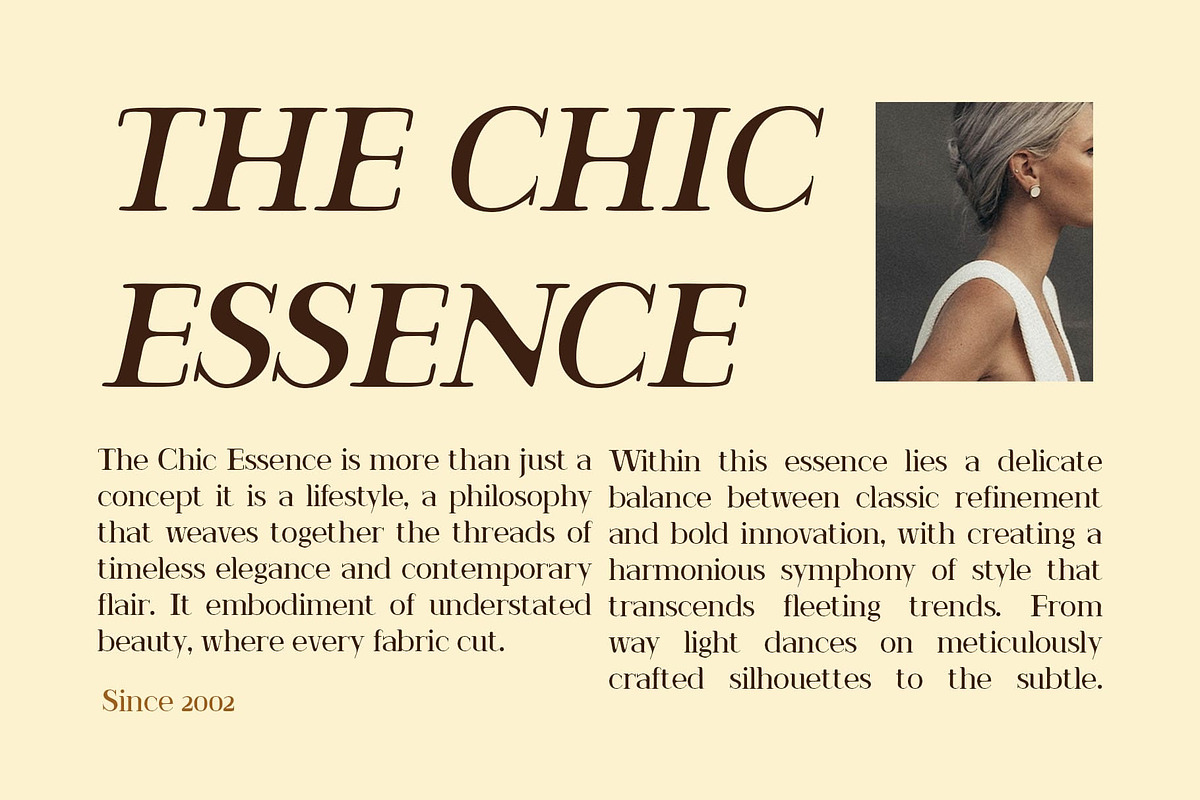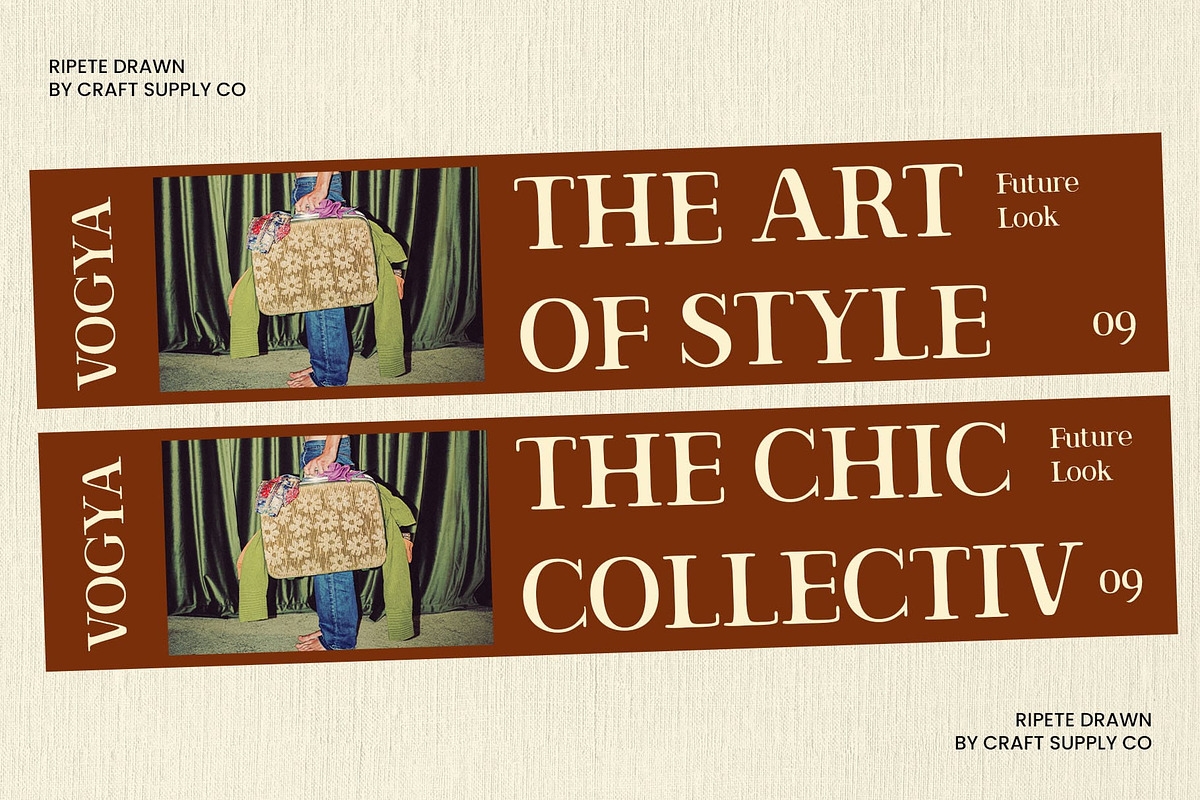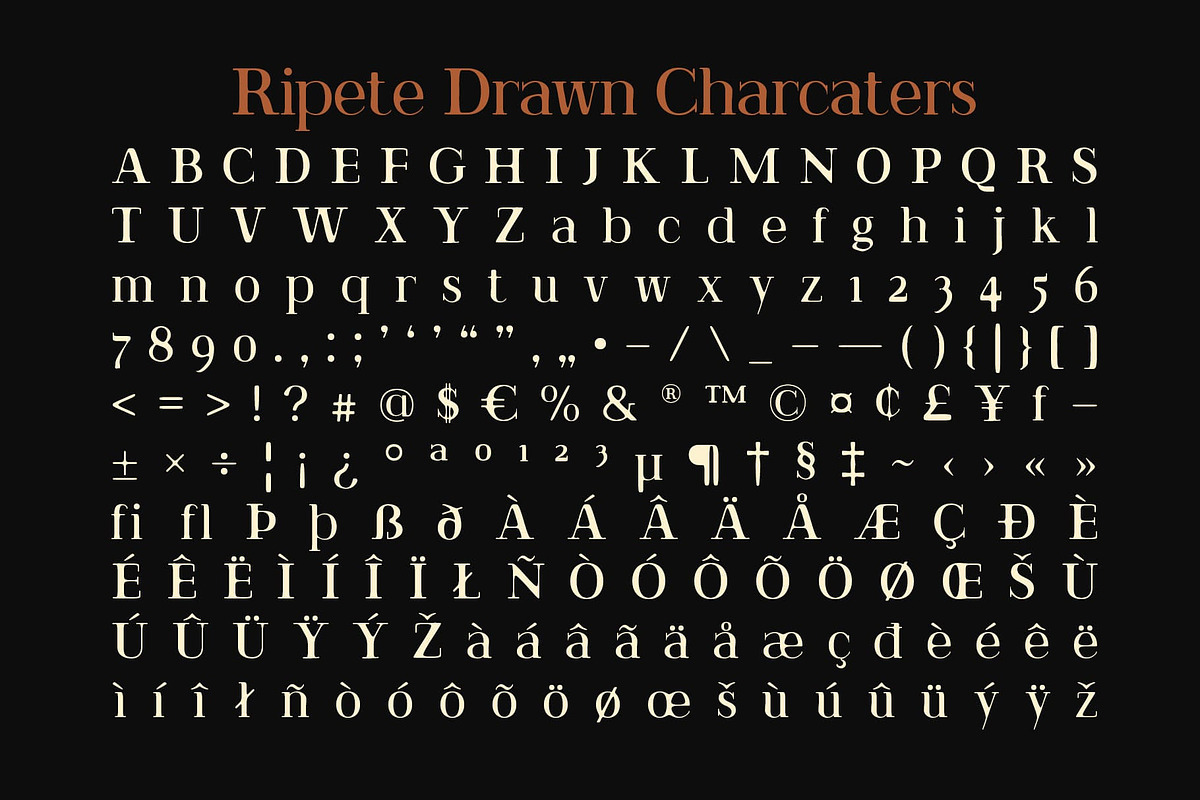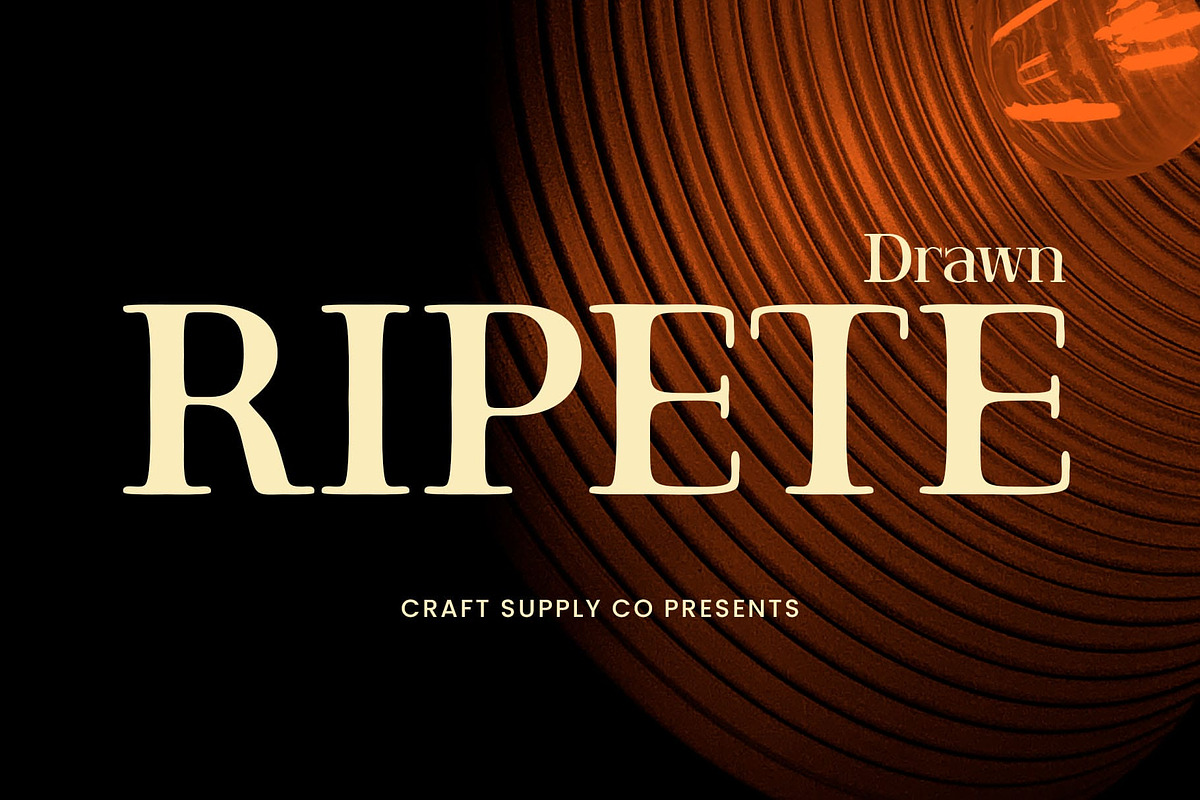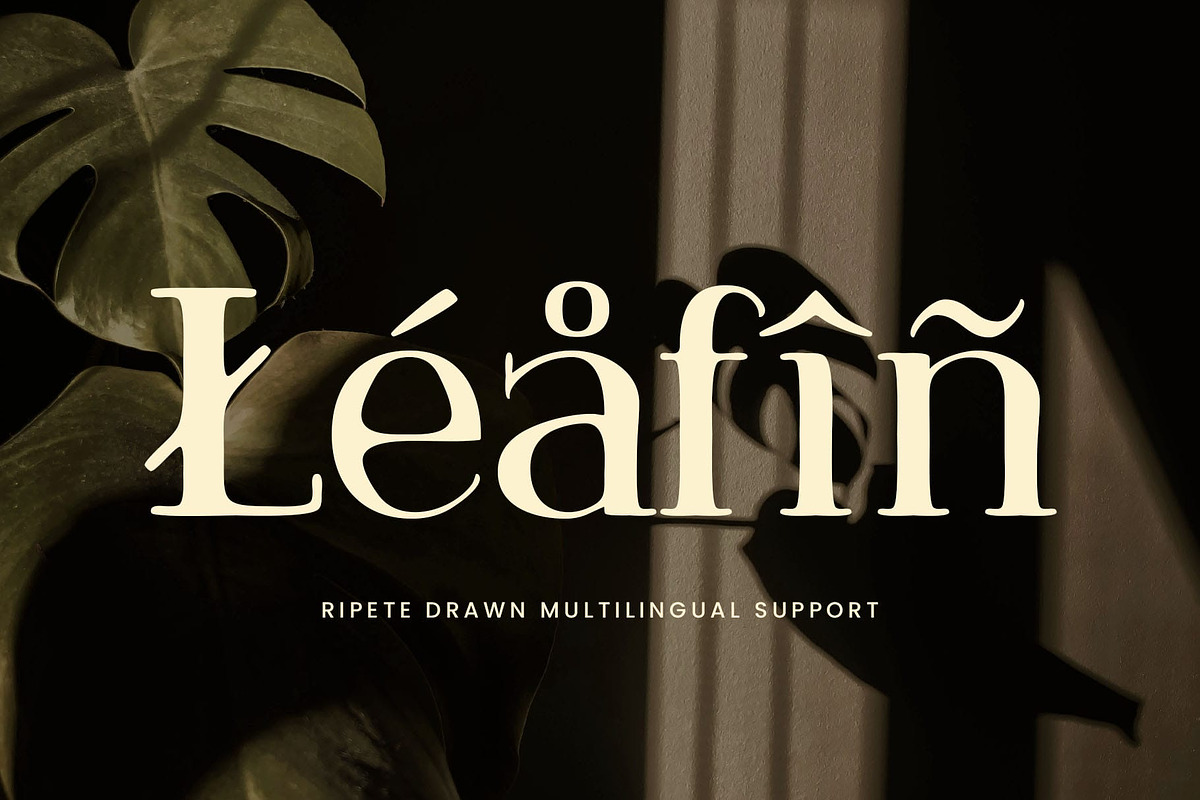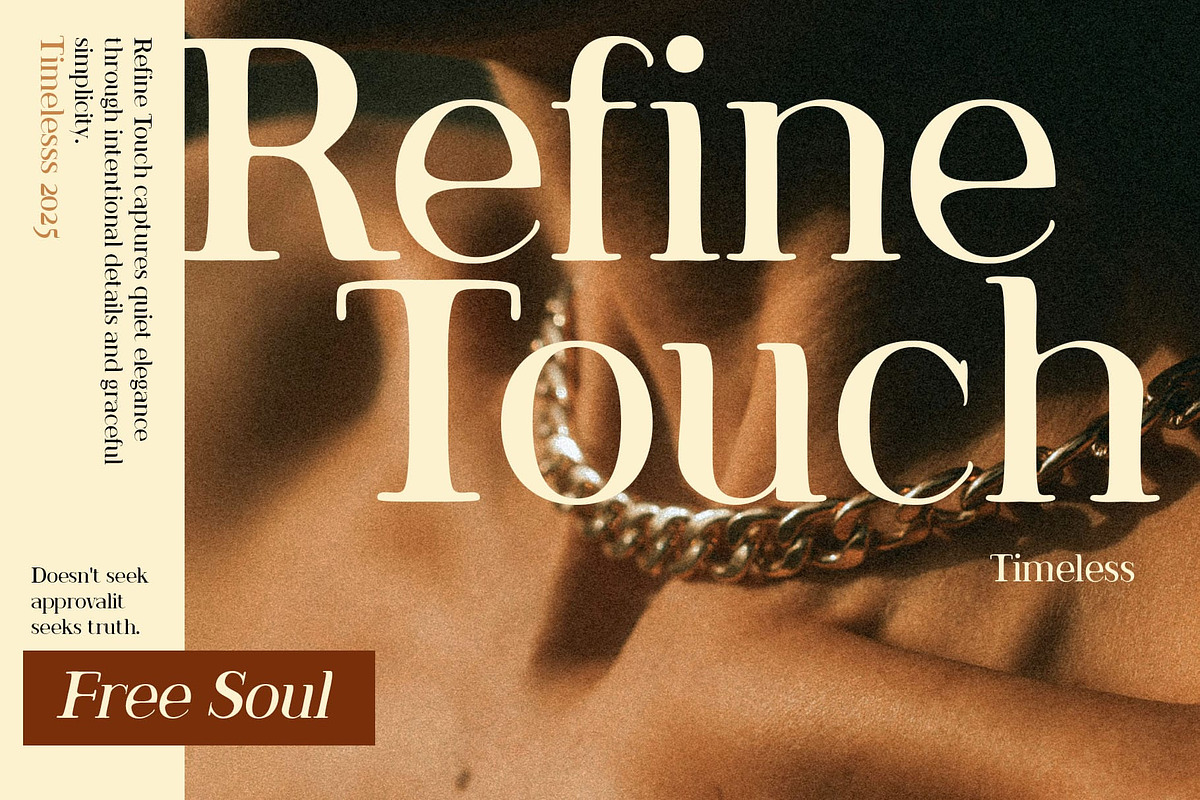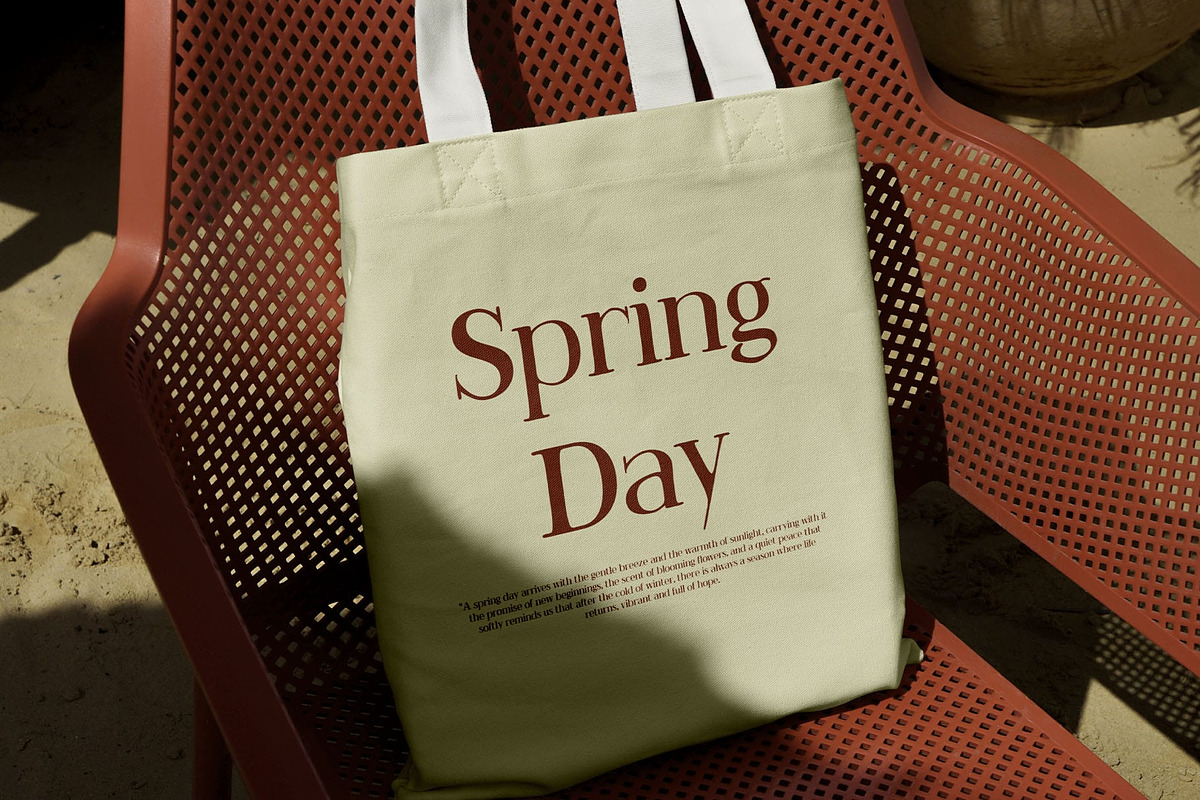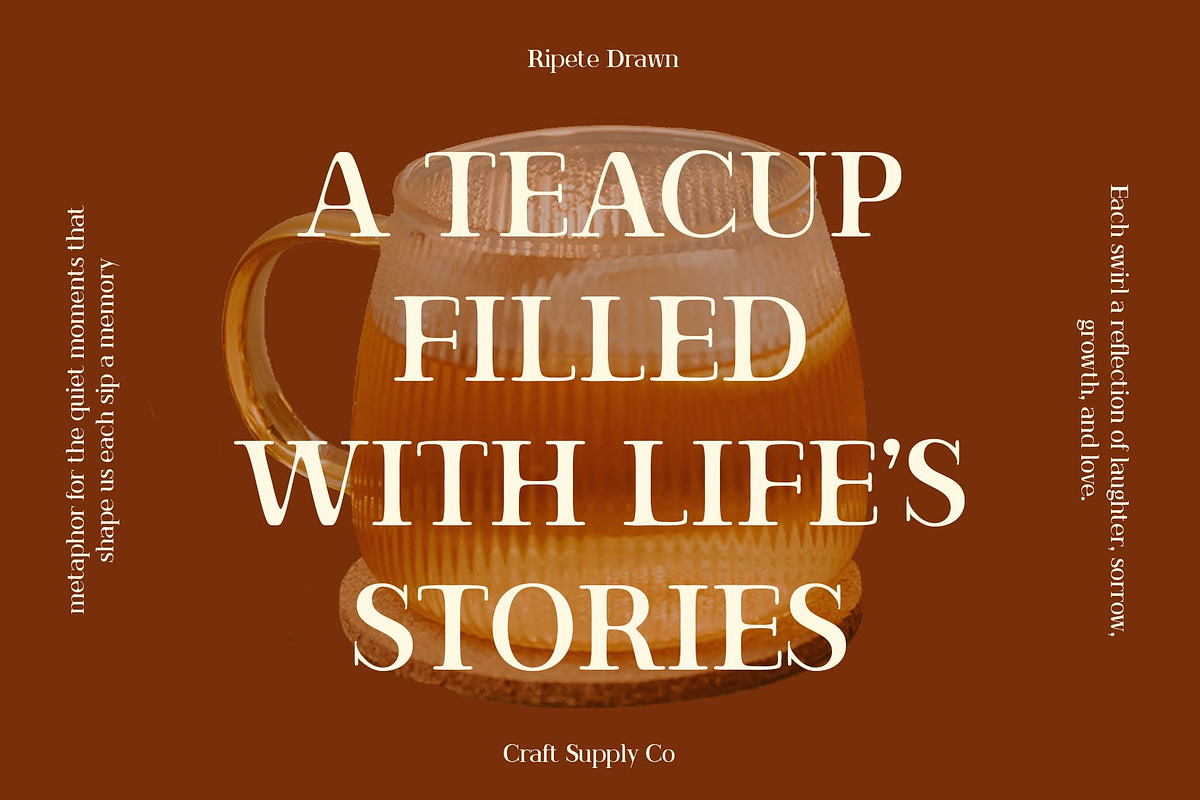
Ripete Drawn
Ripete Drawn Font – Elegance Handcrafted with Texture
Timeless Elegance with a Contemporary Edge Ripete Drawn is a modern serif font that gracefully blends classic serif sophistication with a clean, contemporary form. Its sharp serifs and well-balanced proportions give it a refined, high-end feel—ideal for premium designs that require both structure and elegance.
Hand-Drawn Texture for a Soft, Artistic Touch What sets Ripete Drawn apart is its soft, hand-drawn texture that gently disrupts its polished silhouette. This subtle imperfection adds warmth and personality, creating a tactile, organic impression. The drawn effect evokes the feel of craftsmanship and intentional design, making it both expressive and human.
Perfect for Editorial and Luxury Branding Ripete Drawn thrives in editorial layouts, luxury branding, and visual identities that require grace and distinction. Its elegant form commands attention without overpowering, making it ideal for magazine headlines, high-end product packaging, and artistic visual storytelling.
Subtle Expression for Thoughtful Design Whether used in minimalist designs or layered with rich visuals, Ripete Drawn adds a subtle yet expressive voice. It’s perfect for projects that need to feel curated, sophisticated, and slightly unconventional—where elegance meets artistic flair.